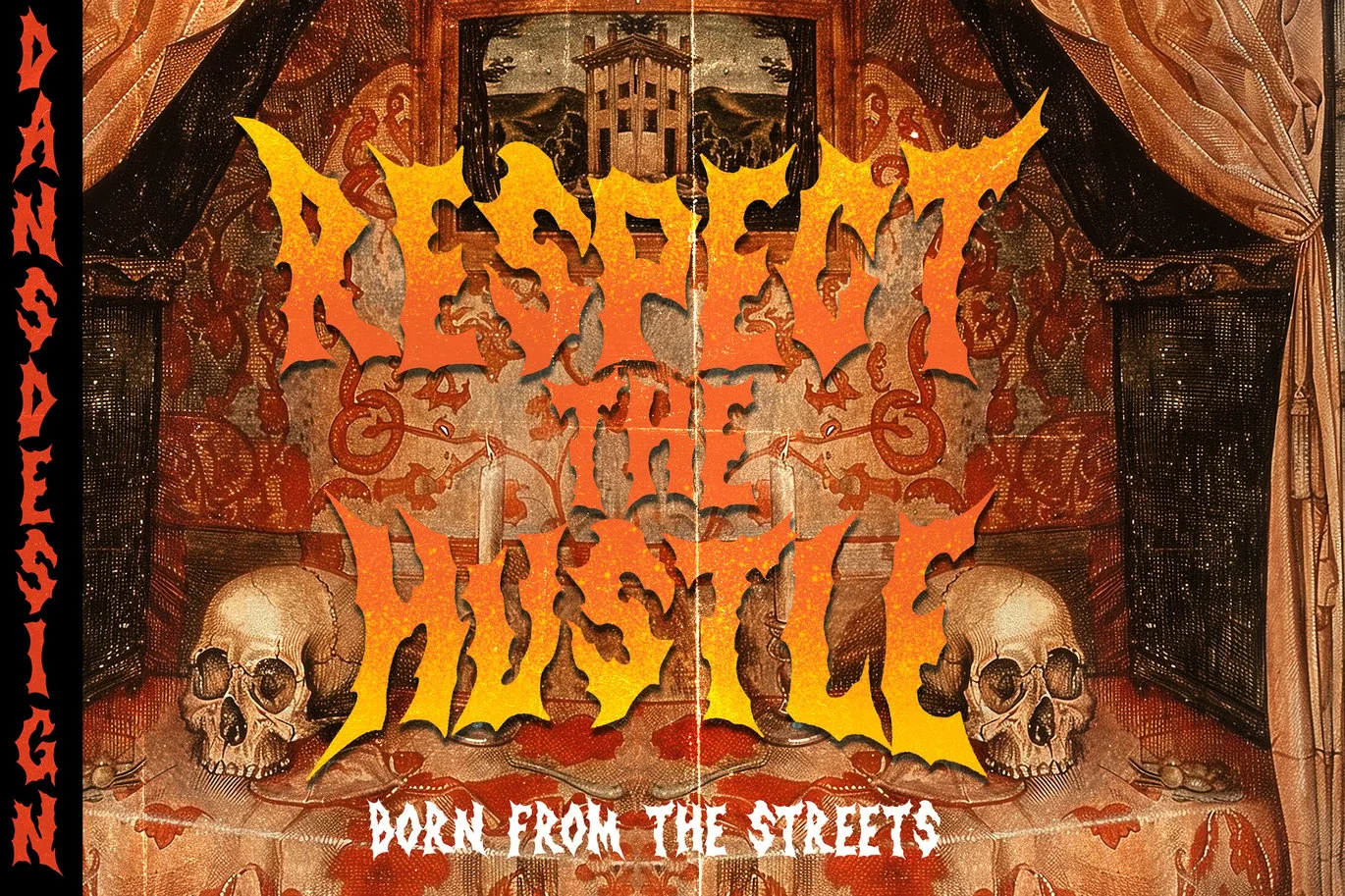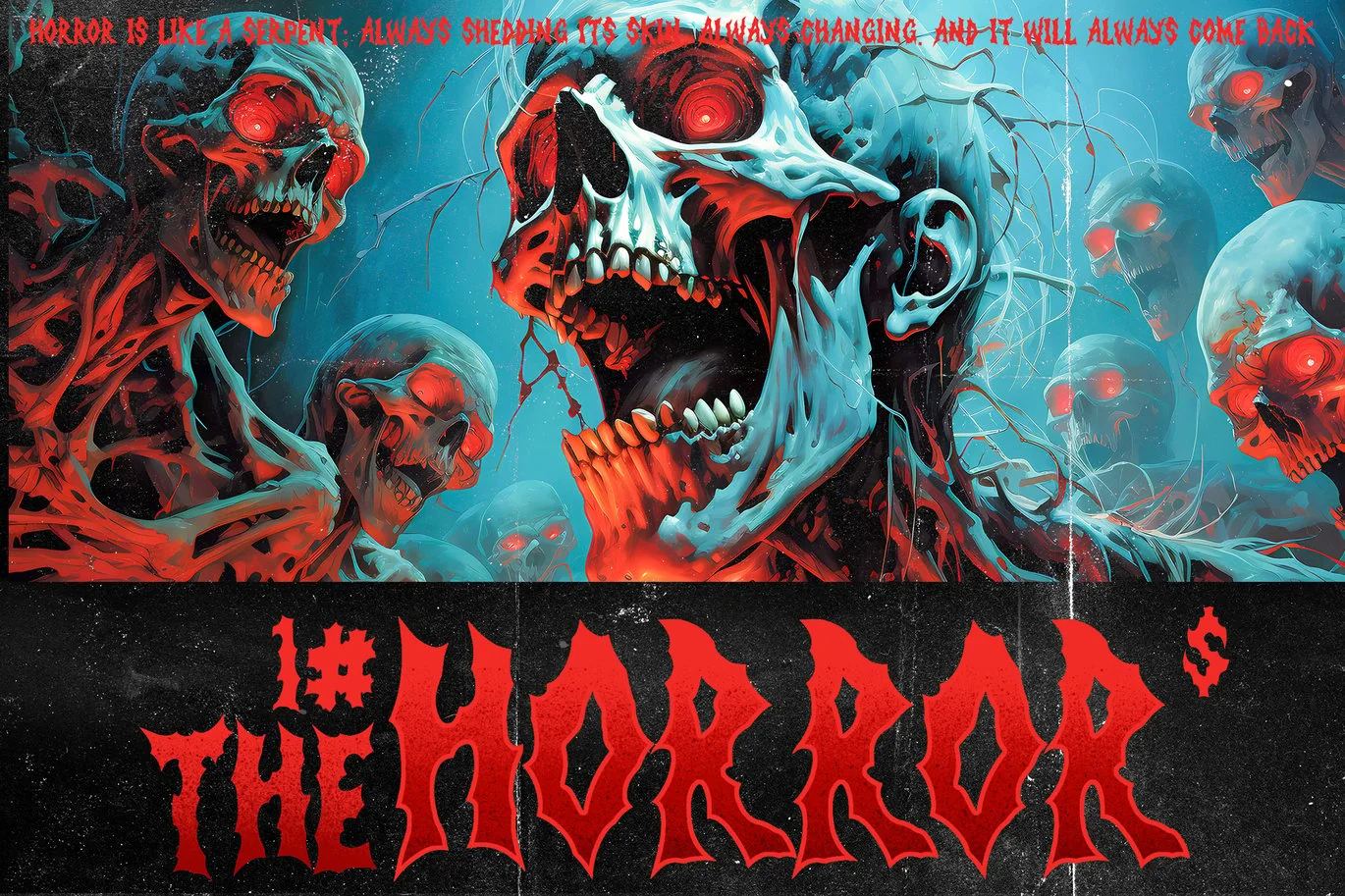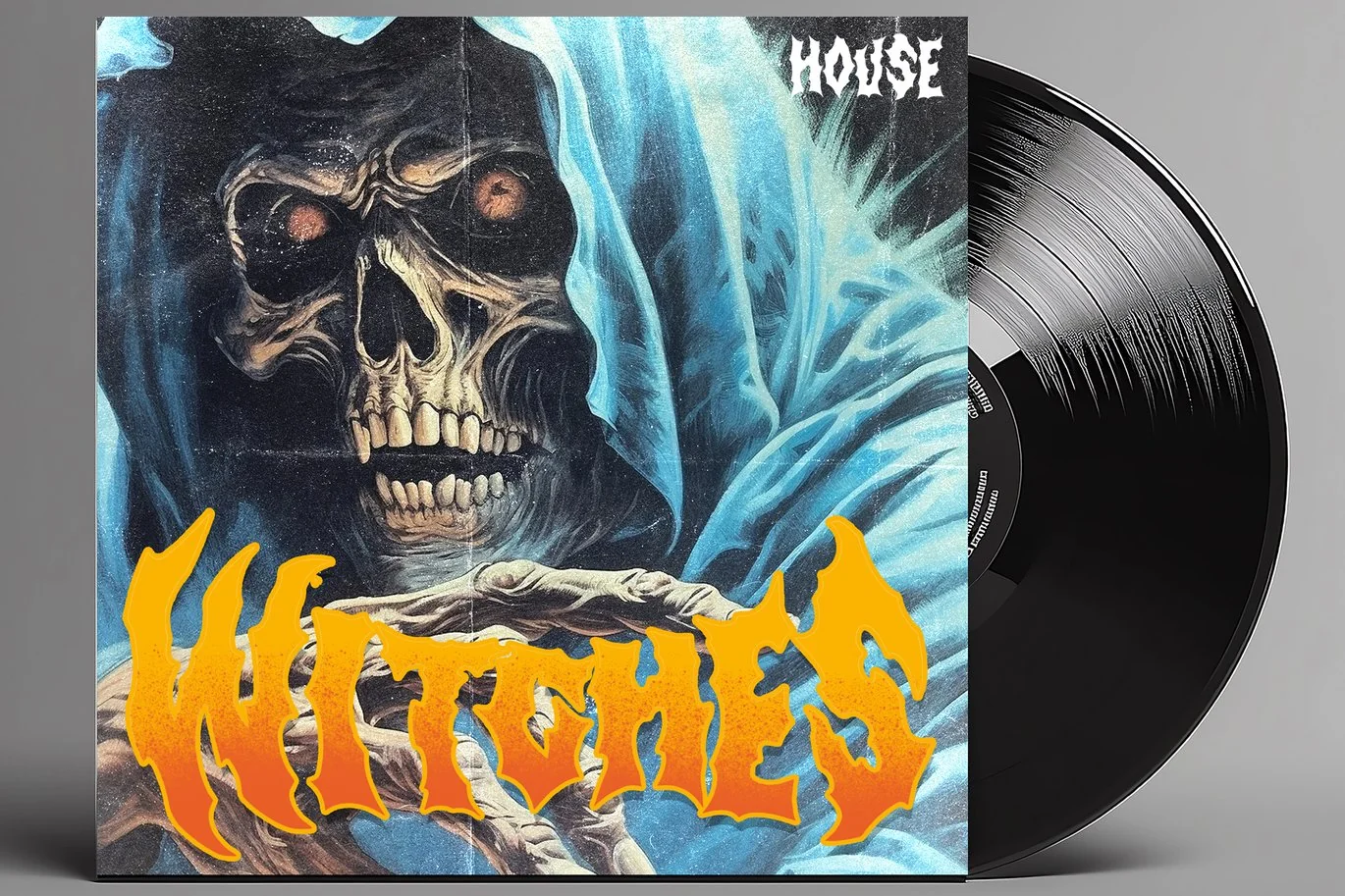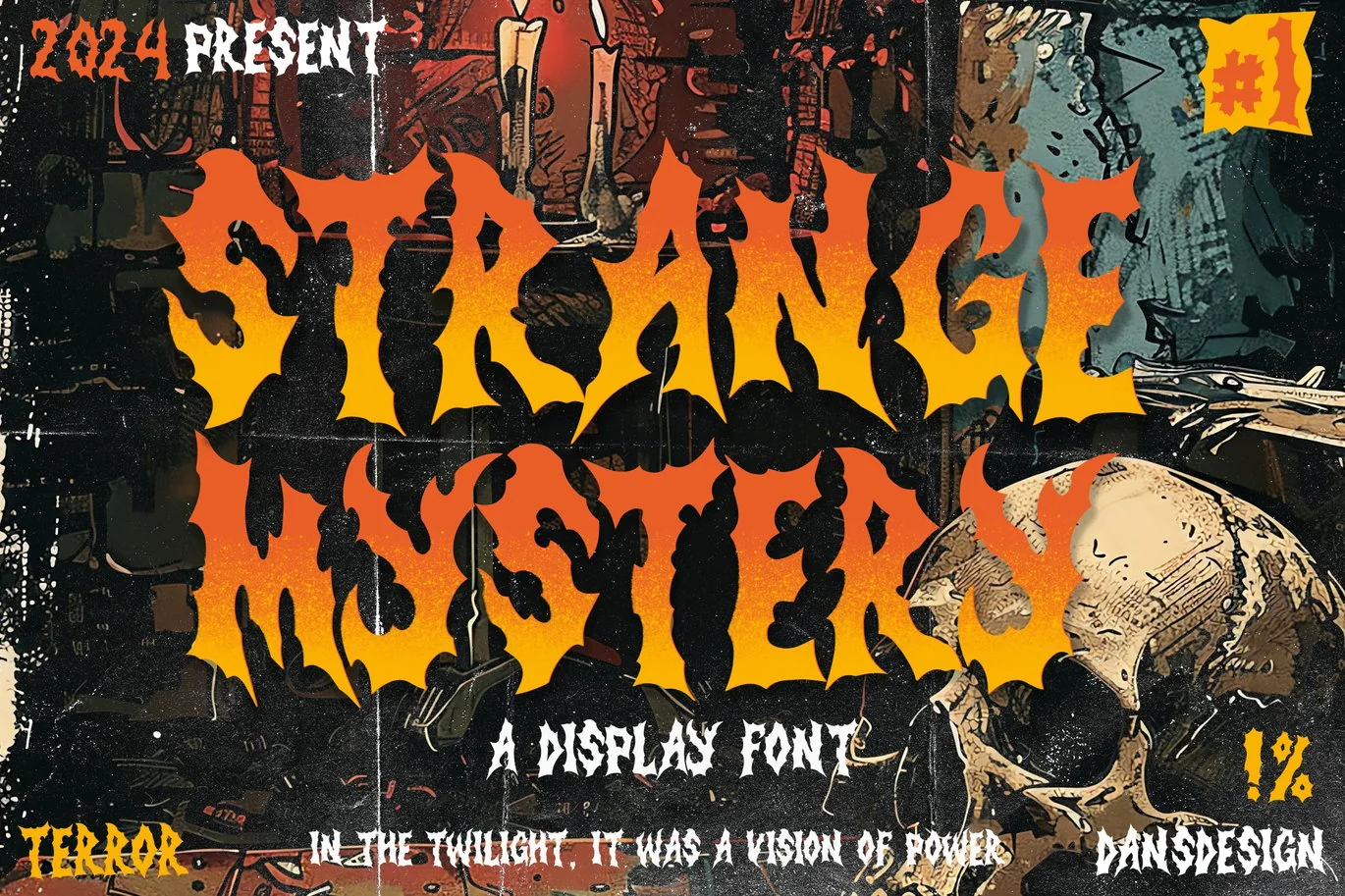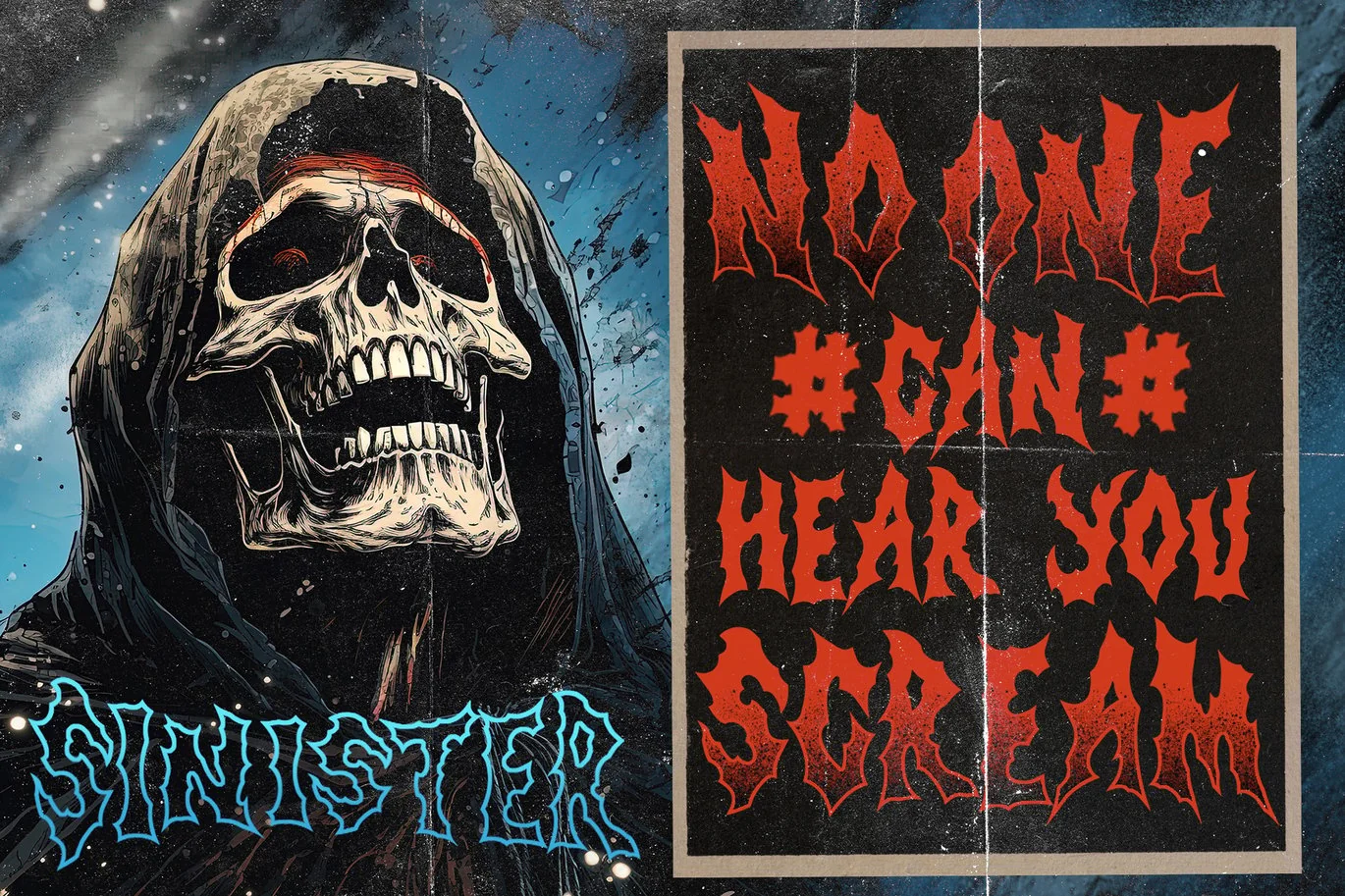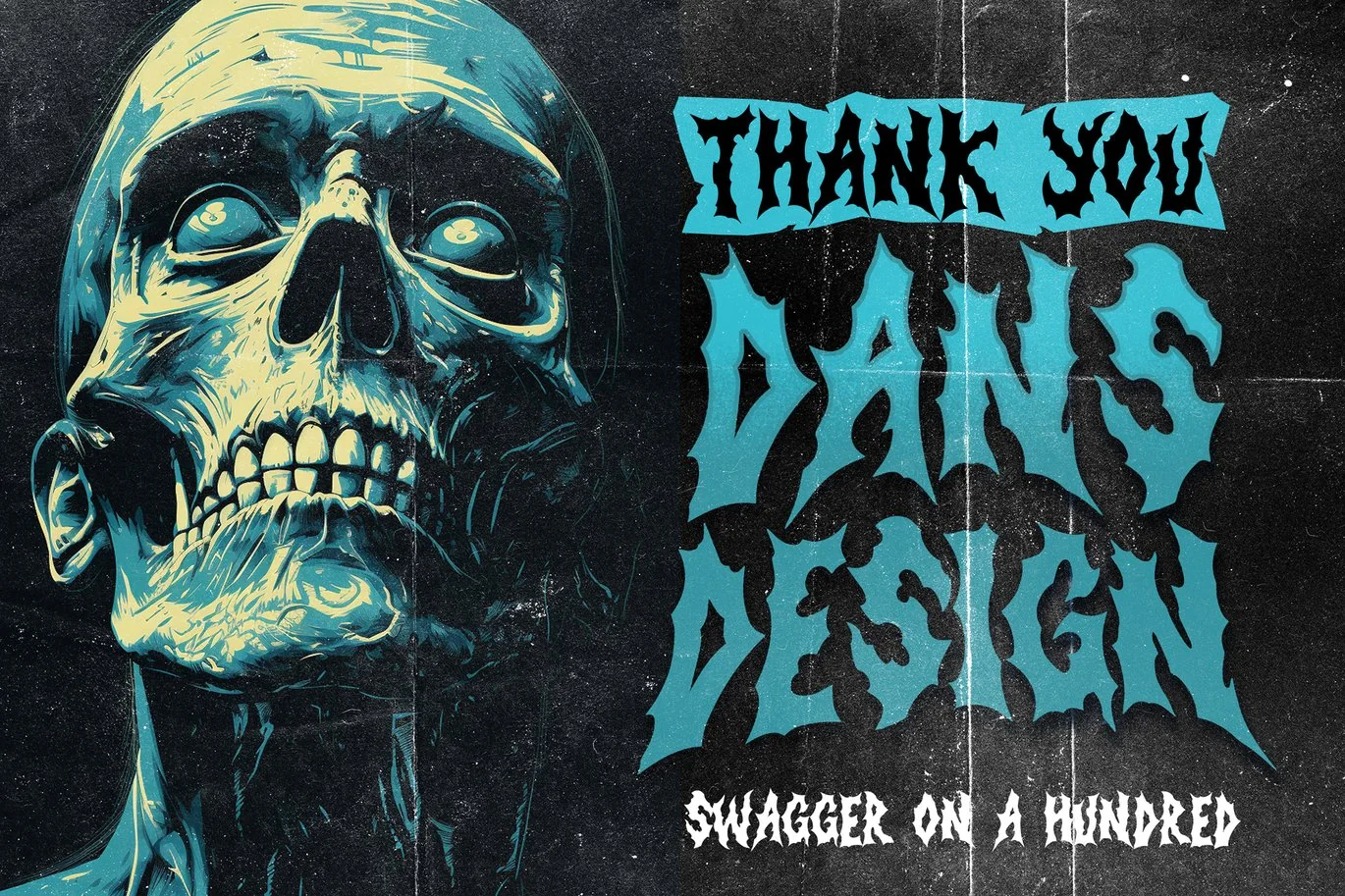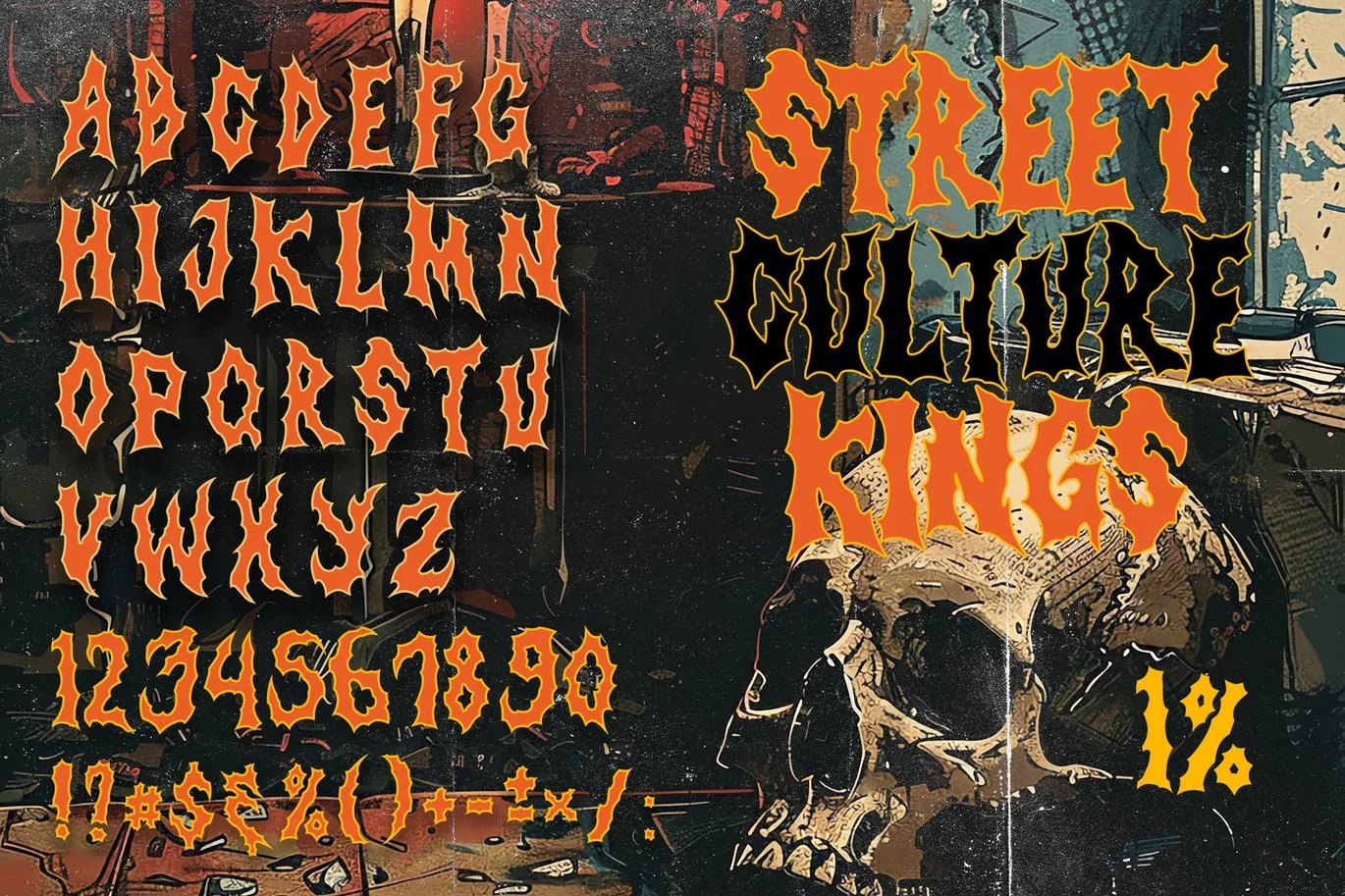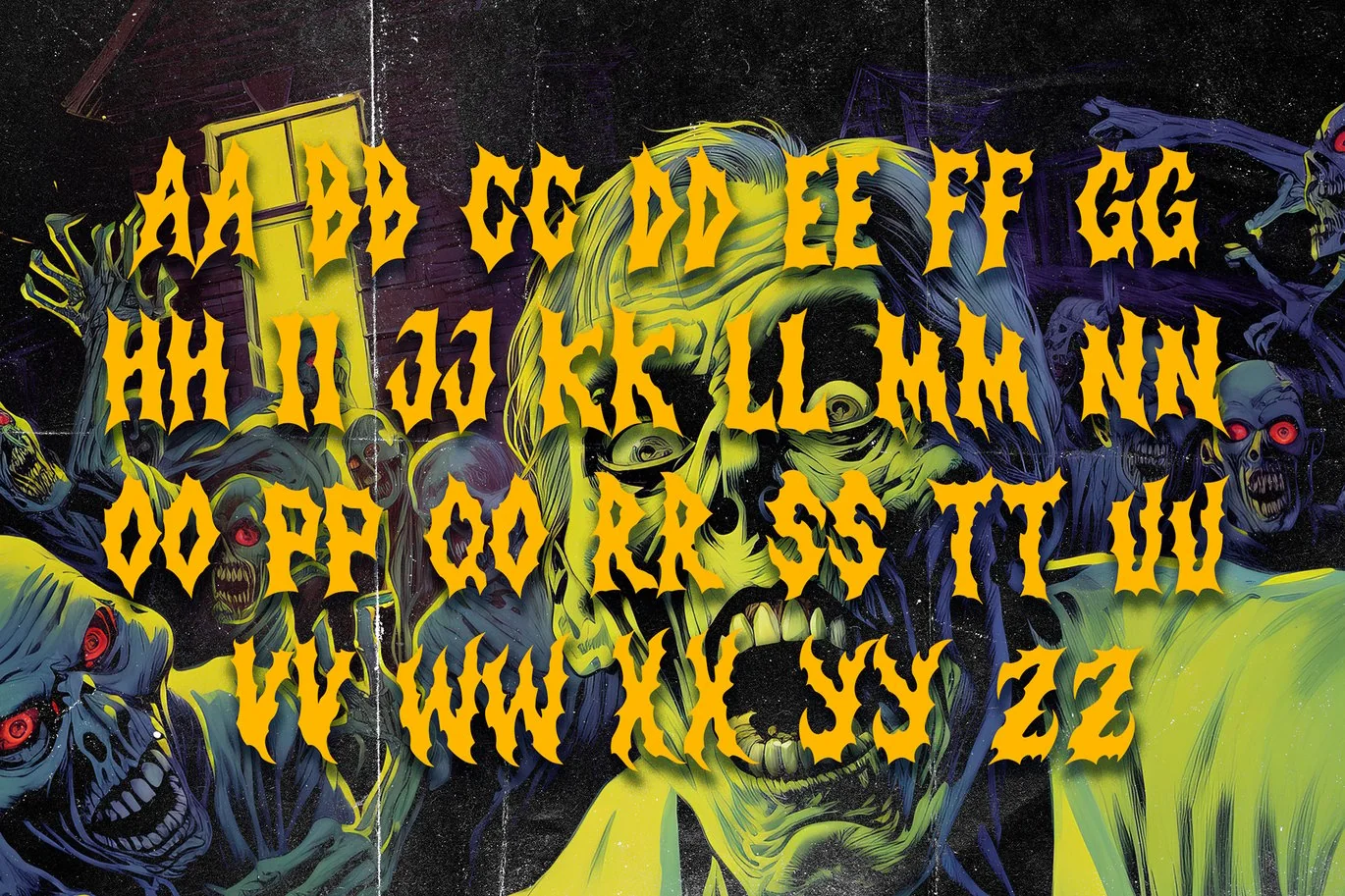
Strange Mystery Horror Metal Display Font
Strange Mystery Horror Metal Display Font a distinct, highly detailed, and chic Blackletter font.
It would make a great choice for exquisite retro-urban designs, tattoo business branding, logos, vintage designs, movie, poster, apparel, illustration, and more.